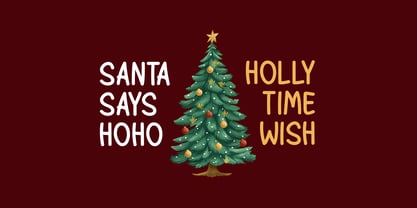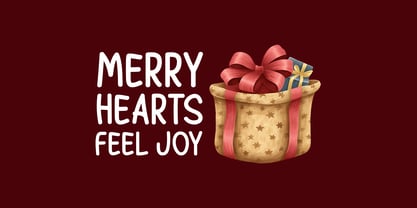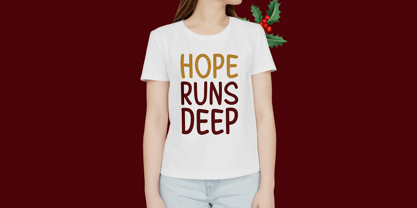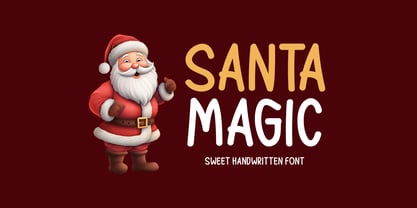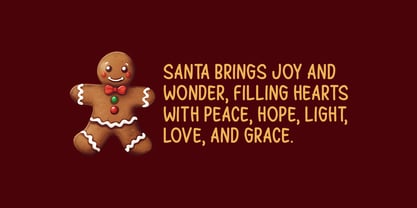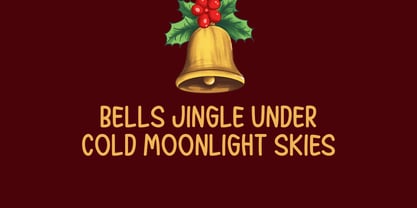
Santa Magic
by Seemly Fonts
The Santa Magic Font Family was designed by Md. Sohail Bhuiyan and published by Seemly Fonts. Santa Magic contains 1 styles. More about this family
Santa Magic is a charming handwritten font that captures the warmth and wonder of the holiday season. Its playful strokes and cozy feel make it ideal for festive projects like greeting cards, logos, apparel, print materials, web headers, music covers, and more. Whether you're designing for Christmas or simply want to add a magical, personal touch, Santa Magic brings joy to every creation.
Designers: Md. Sohail Bhuiyan
Foundry: Seemly Fonts